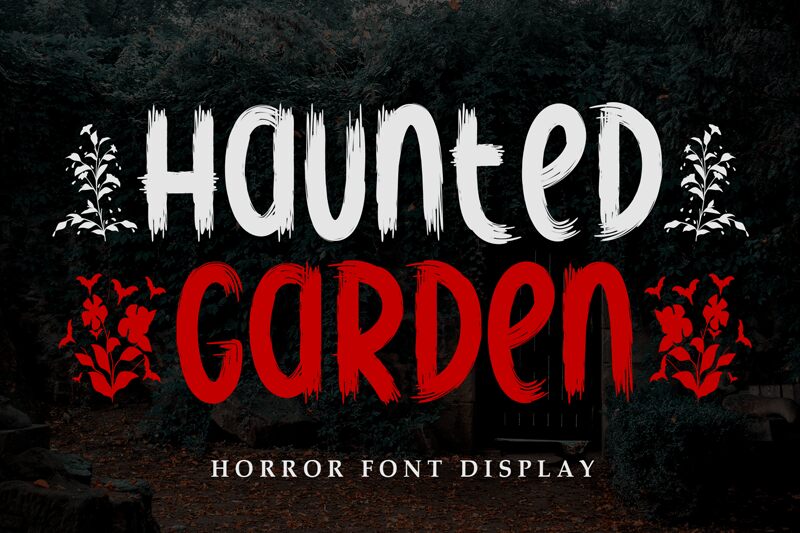
Haunted Garden font by Andi Moz is a scary condensed display font inspired by haunted night gardens and a rustic charm. Featuring grainy texture, distressed appearance, Gothic influence, and eerie atmosphere, the font comes with rusty unfinished edges. Despite being scary in nature, it still maintains an authentic friendly touch in all its applications.